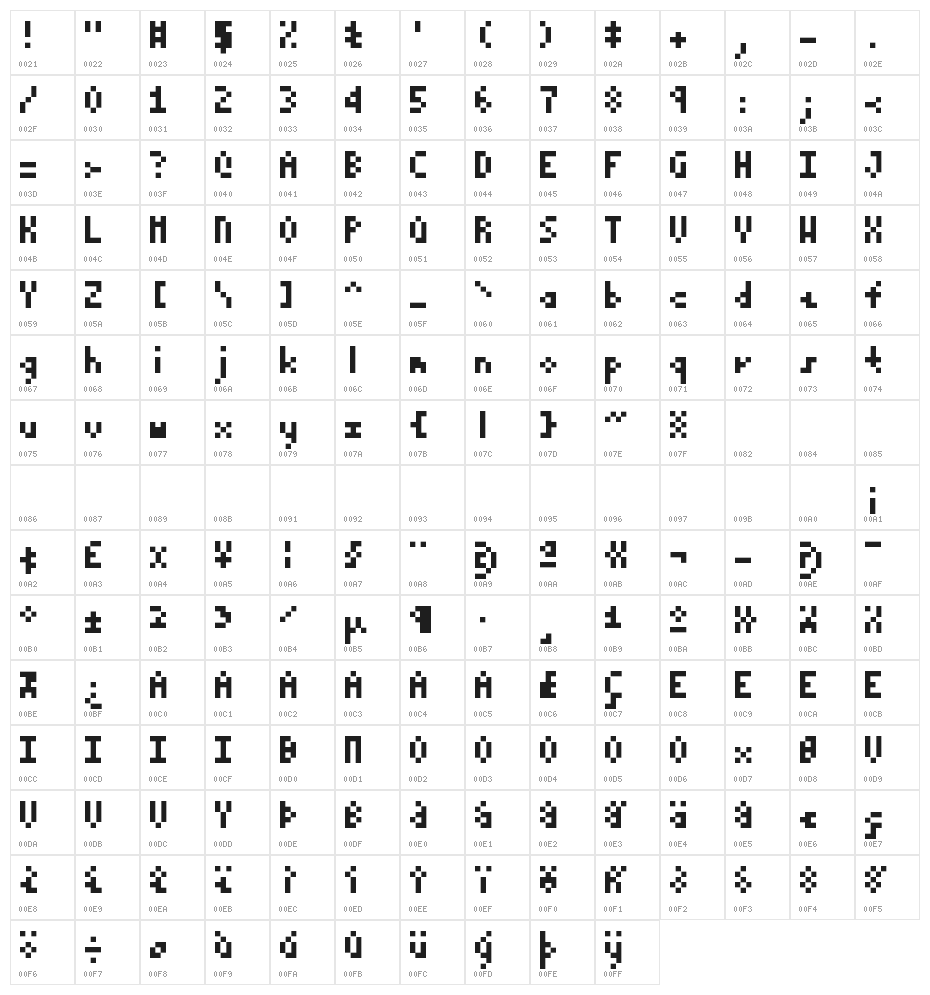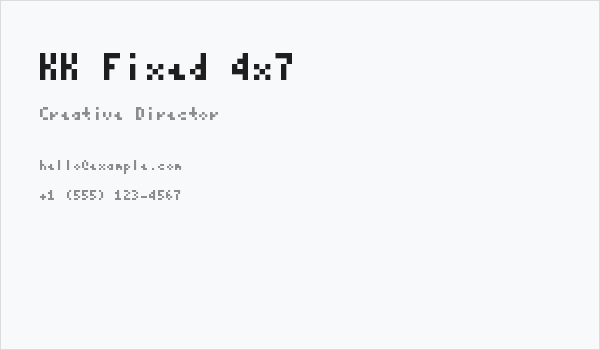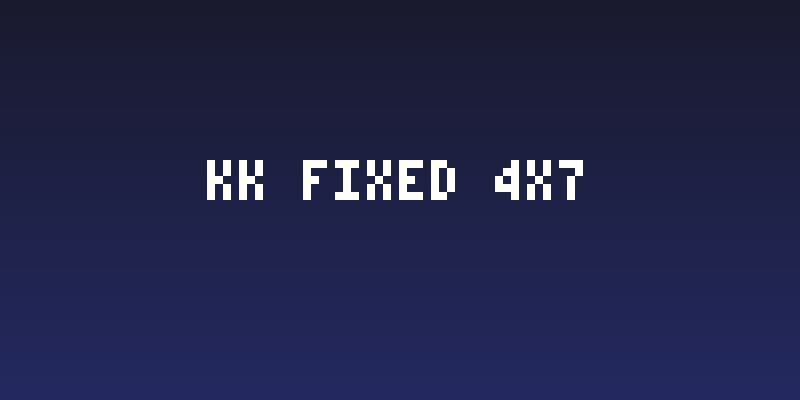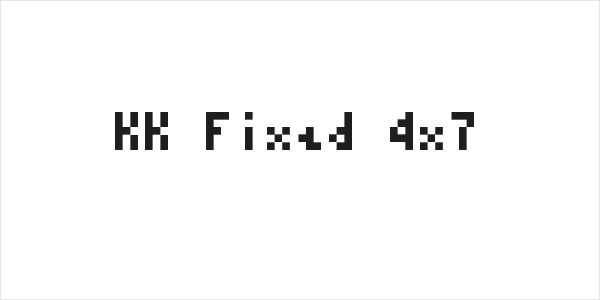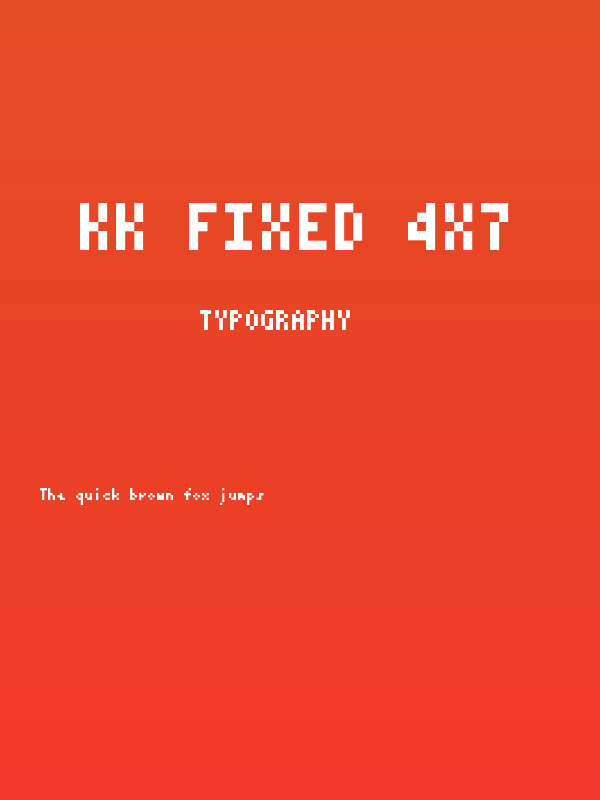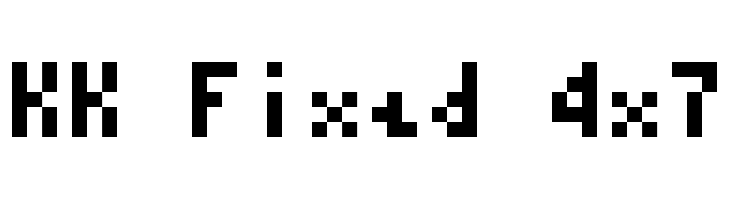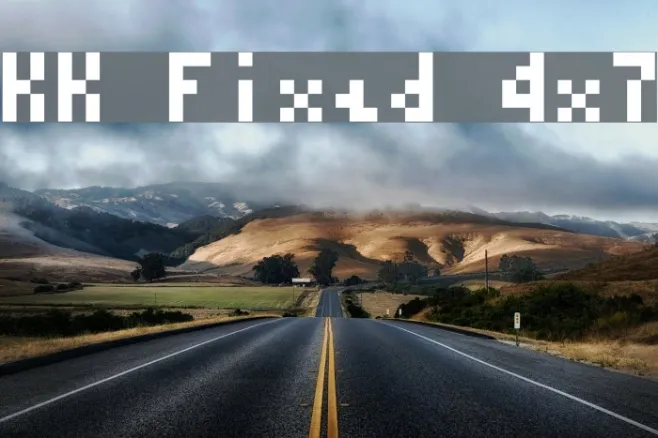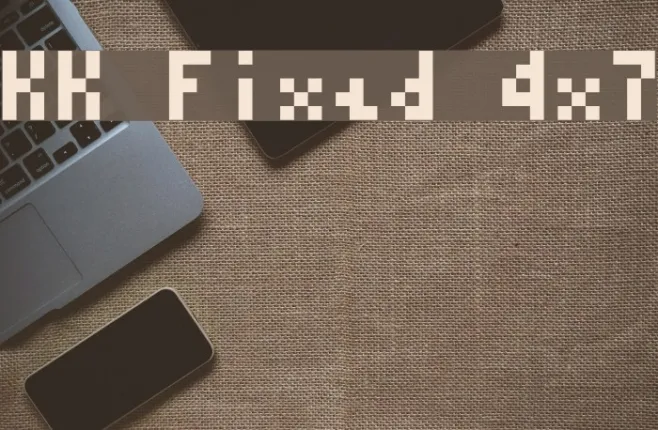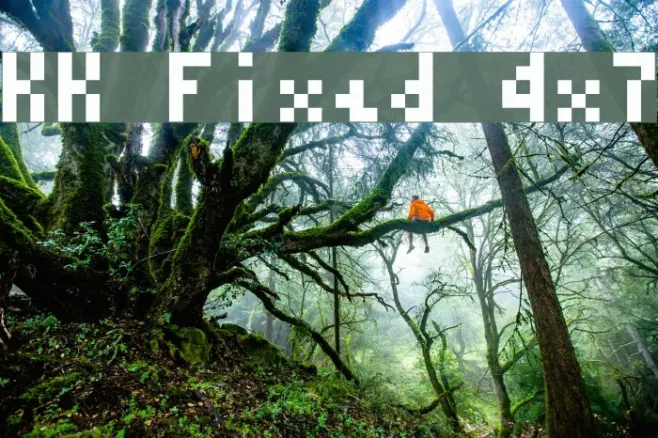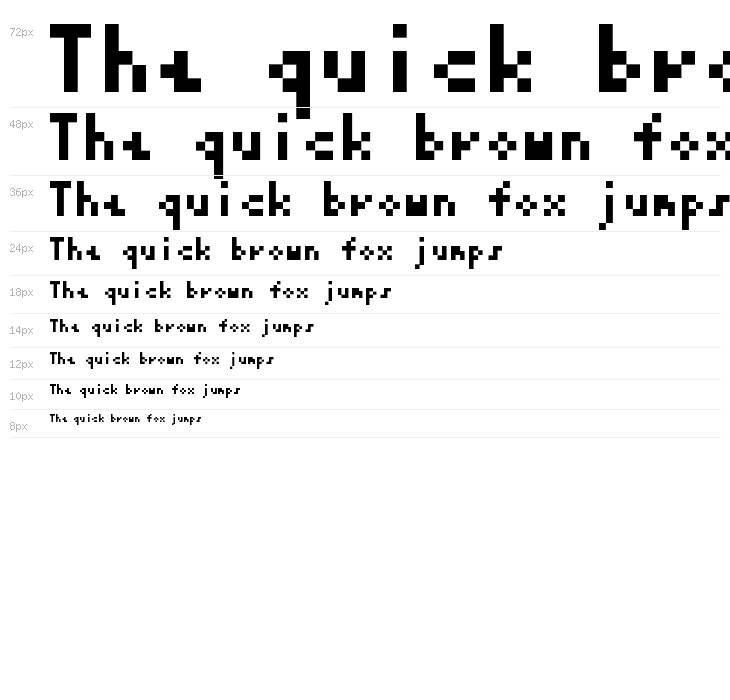
KK Fixed 4x7 Font
KK Fixed 4x7 Description
This font is a pixelated, monospaced typeface characterized by its blocky, grid-like appearance. Each character is composed of a uniform grid of pixels, giving it a distinctly retro, digital aesthetic reminiscent of early computer displays and video games. The uppercase and lowercase letters maintain a consistent height and width, contributing to its monospaced nature. The numerals and special characters follow the same pixelated style, ensuring uniformity across all glyphs. This font's simplicity and clarity make it highly legible, even at smaller sizes, while its nostalgic design evokes a sense of vintage computing.
| Use Case | Headlines, Digital displays, Coding |
| Proposed Projects | Ideal for retro video games, digital art projects, coding environments, and any design requiring a vintage tech feel. |